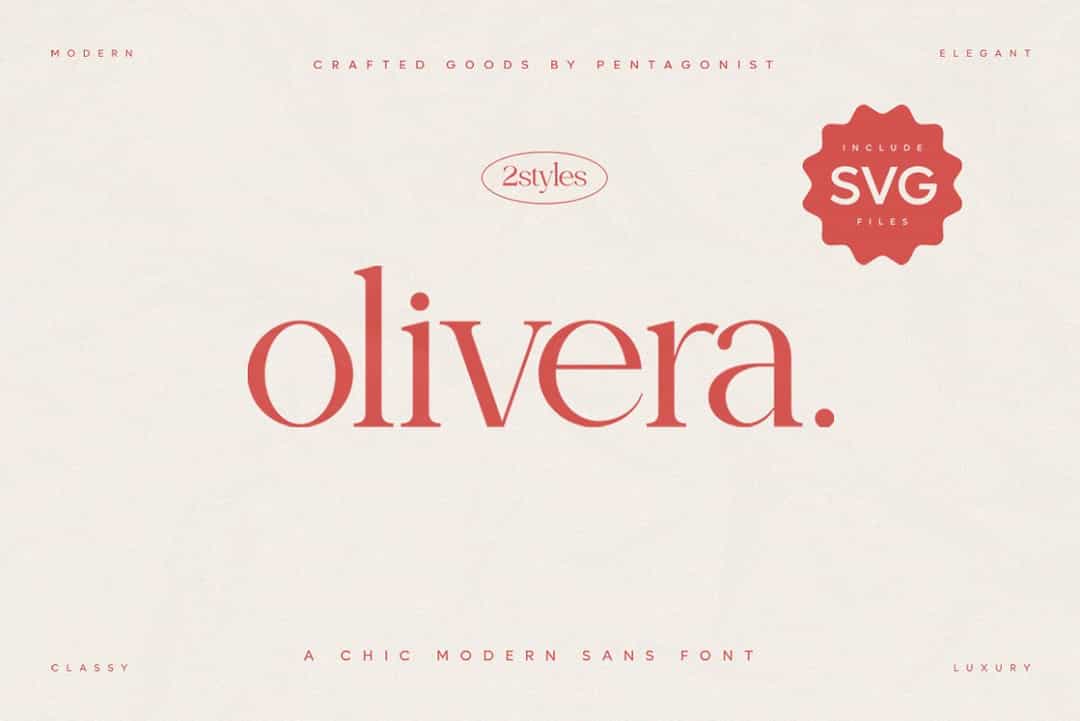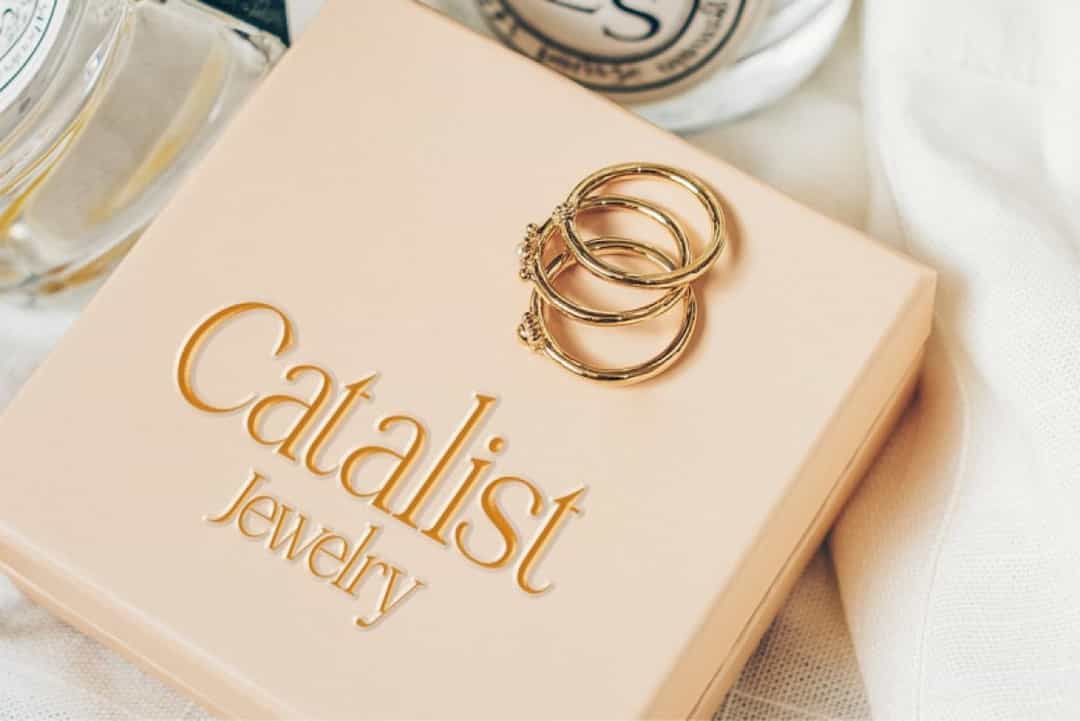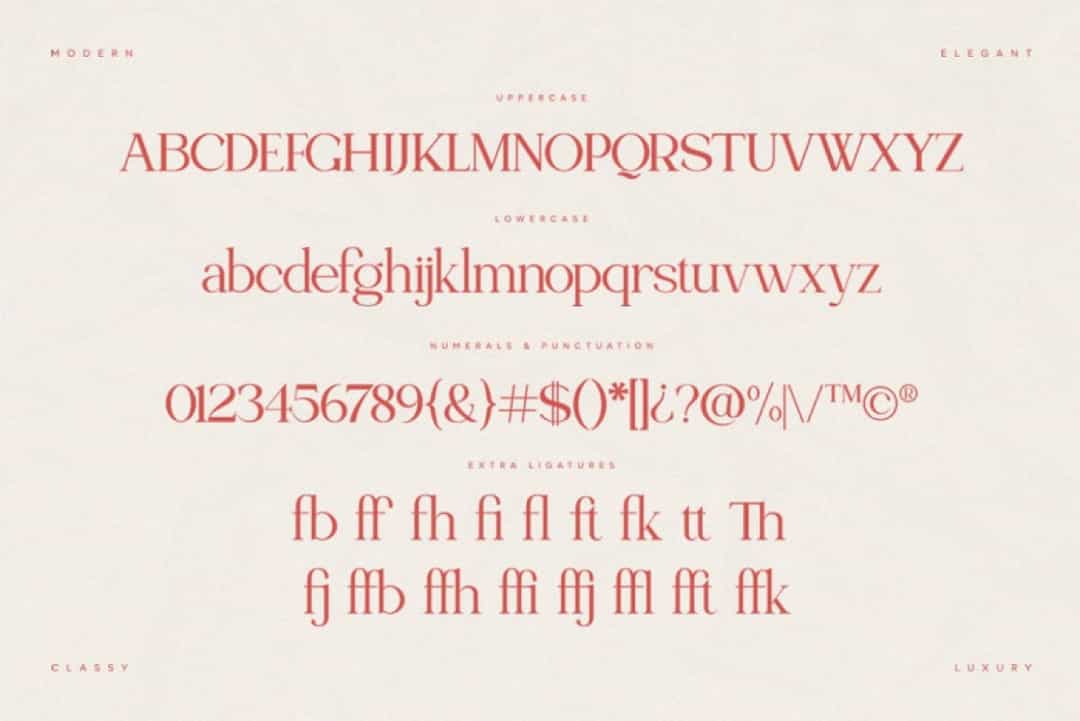
Olivera, It is an elegant, beautiful style with an eye-catching accent, designed specifically for high-end elegant, feminine, and sophisticated projects. Perfectly suitable for contemporary designs with its chic appearance.